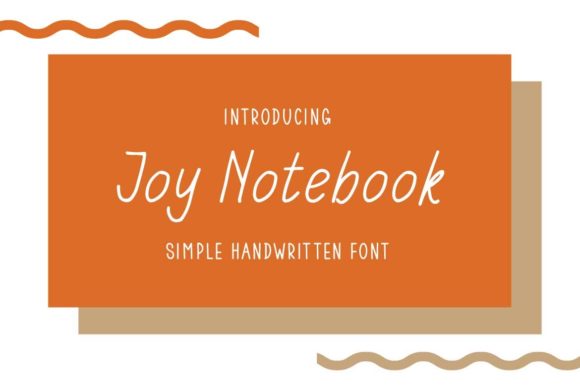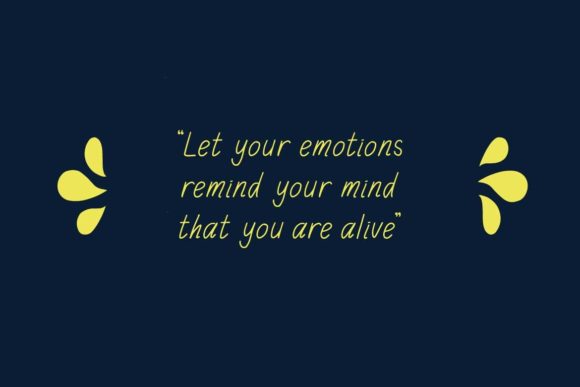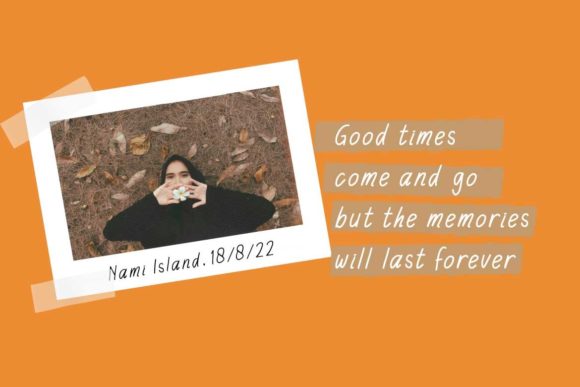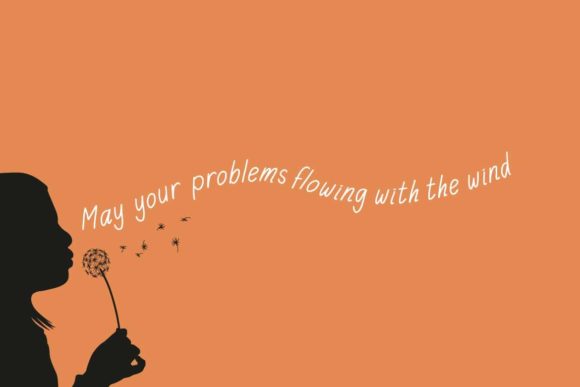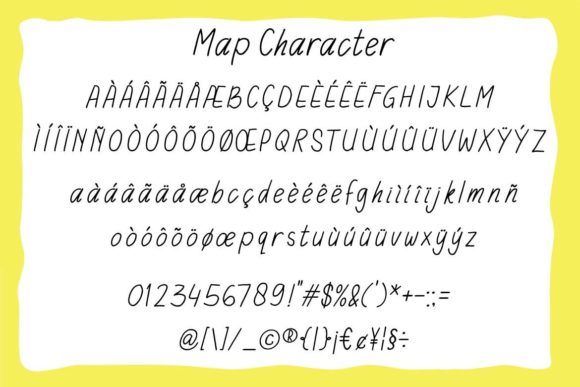
About Joy Notebook Font
Joy Notebook is a natural and laid-back script font. It can easily be matched to an incredibly large set of projects, so add it to your creative ideas and notice how it makes them stand out!